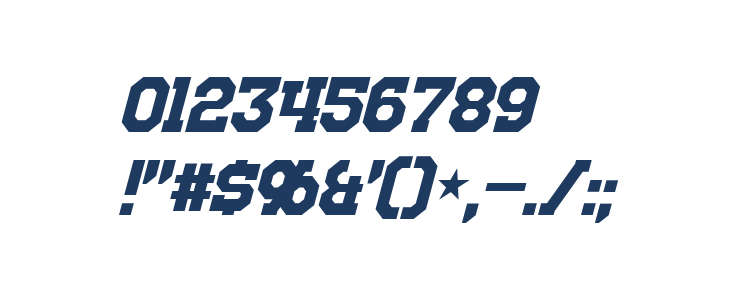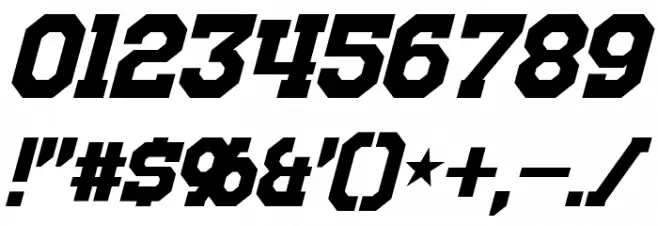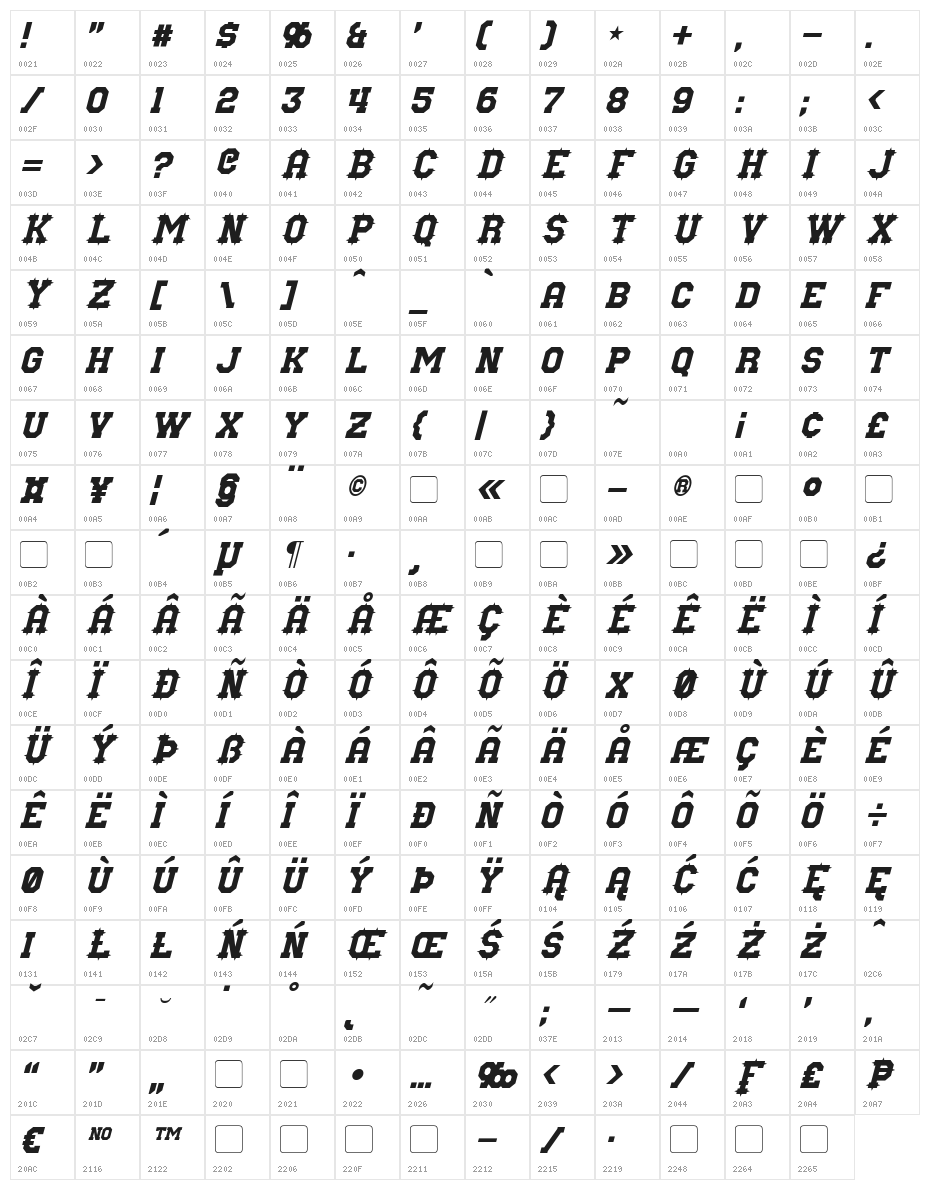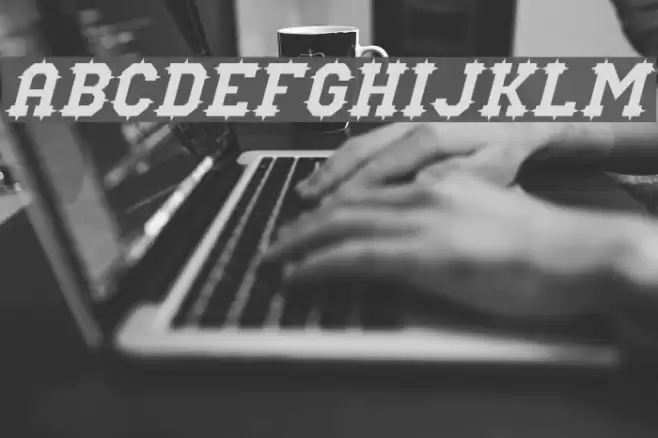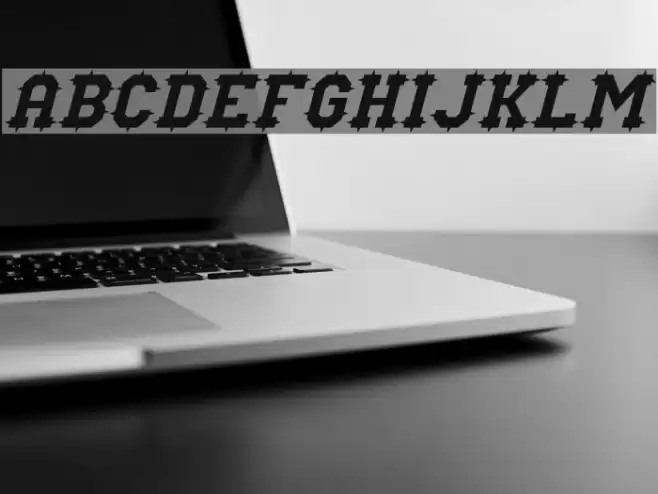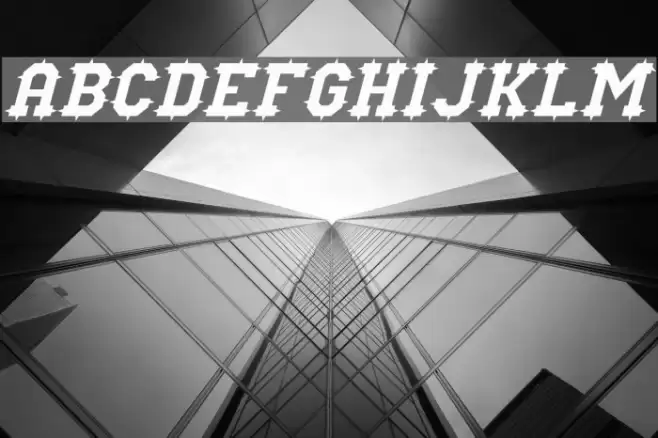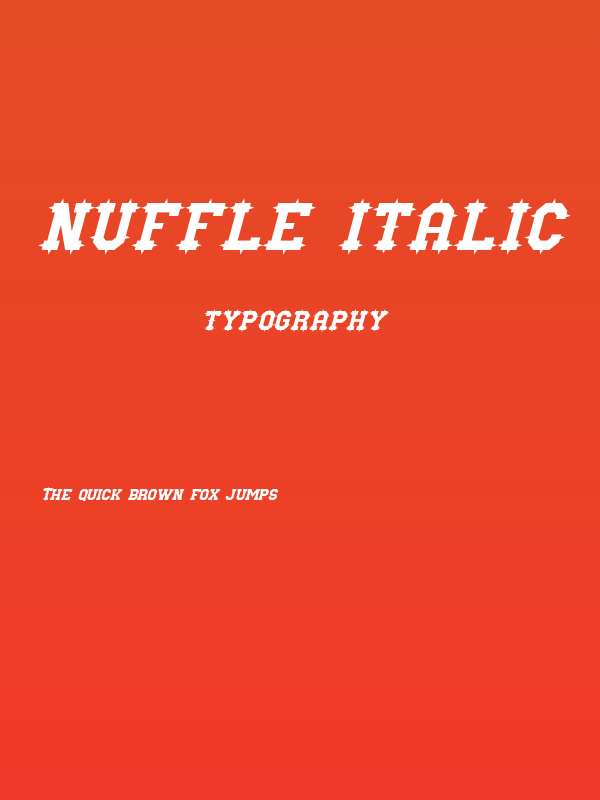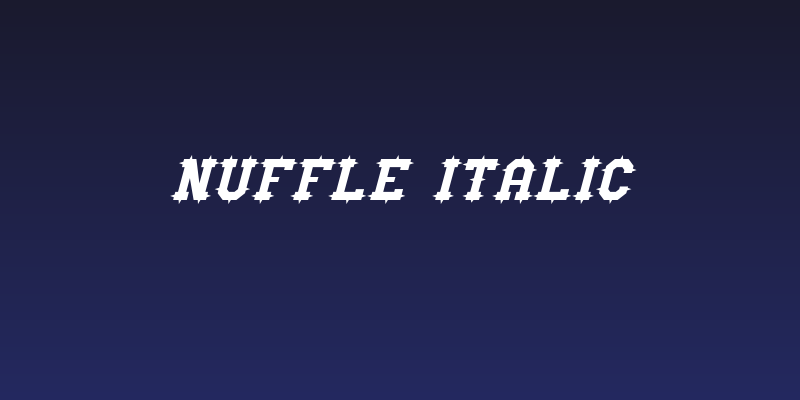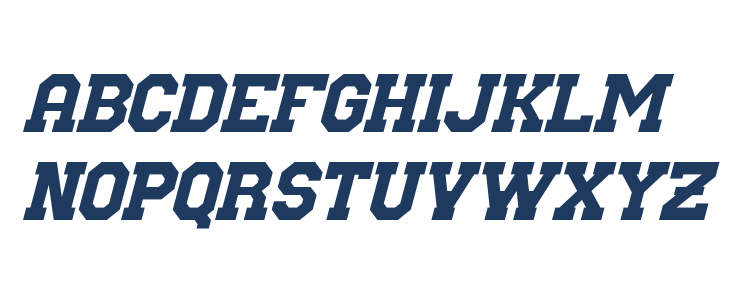
Nuffle Italic Font
Nuffle Italic Description
This font features a bold and dynamic style with sharp, angular edges and a distinct italic slant. The characters are designed with a strong geometric influence, giving them a modern and edgy appearance. The uppercase and lowercase letters maintain a consistent style, with the uppercase being slightly more pronounced. Numbers and special characters follow the same bold and angular design, ensuring uniformity across all glyphs. The font's unique style makes it stand out, suitable for projects that require a strong visual impact.
| Proposed Projects | Ideal for sports branding, dynamic posters, video game titles, and edgy graphic designs. |